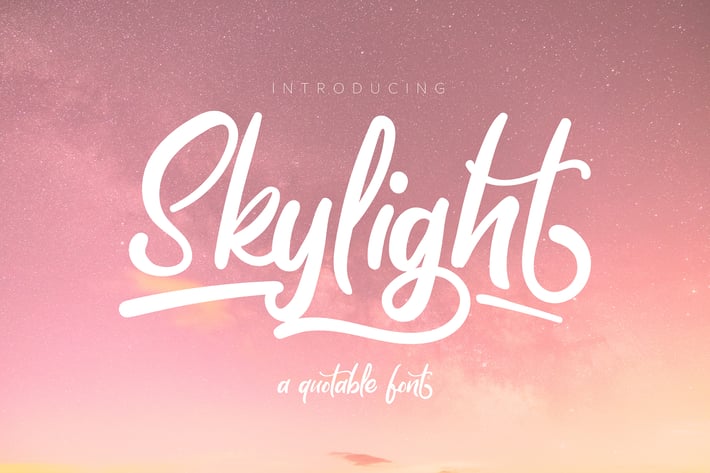
Skylight | A Quotable Font
Skylight | A Quotable Font with a calligraphy style, So beautiful on invitation like greeting cards, branding materials, business cards, quotes, posters, and more!